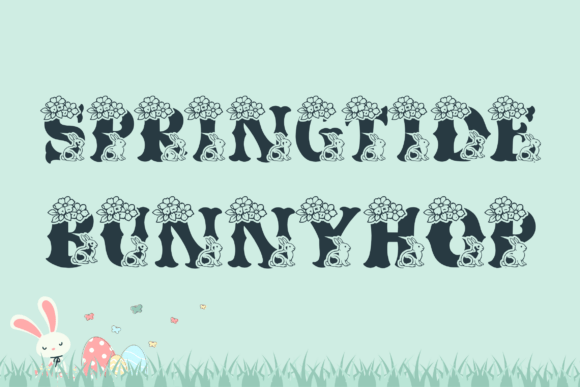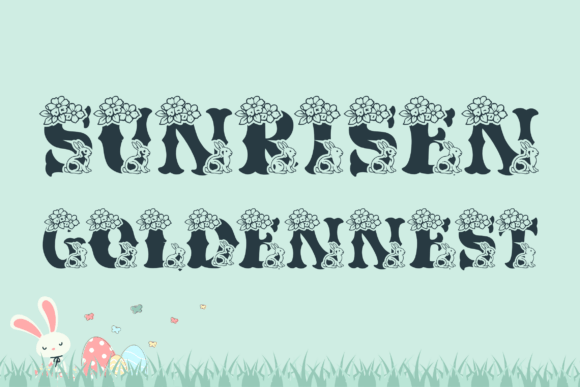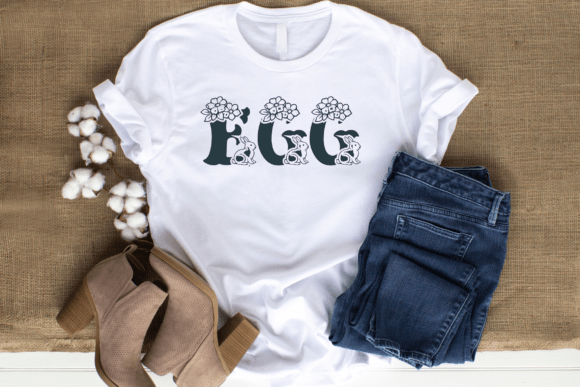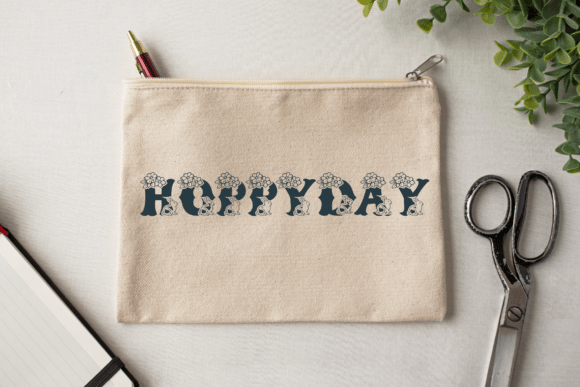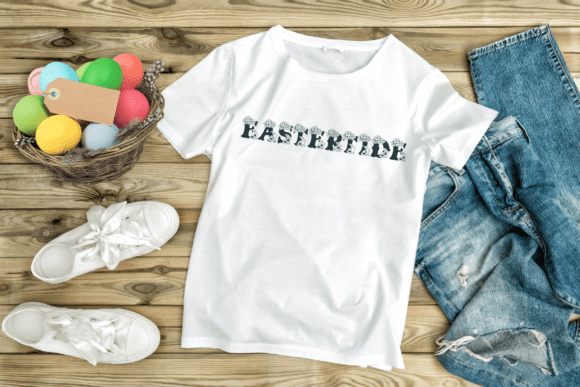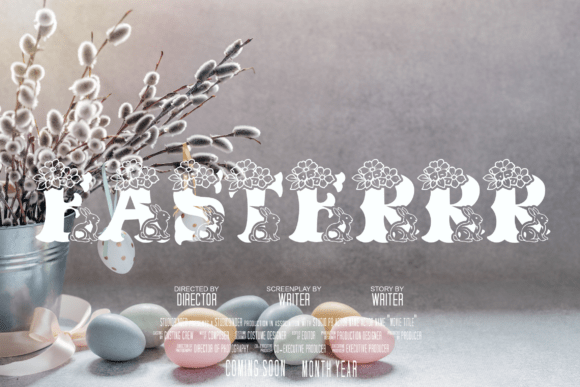
Meet Caskford Easter, the Western-Style Easter Decorative Font
Are you looking for a unique and festive font to elevate your Easter designs? Look no further than Caskford Easter, a Western-style Easter decorative font that blends classic old Western letterforms with a playful seasonal twist. This font is perfect for creating warm, fun, and memorable Easter designs that will stand out from the crowd.
A Perfect Blend of Classic and Playful
Caskford Easter is based on the original Caskford font, which boasts a bold, vintage structure. However, this Easter version adds a softer, festive mood that feels friendly and handcrafted. The result is a font that is both strong and readable, making it perfect for use in a variety of design projects, from small tags to large headlines.
Versatile and Practical
One of the best things about Caskford Easter is its versatility. This font is perfect for a wide range of Easter-themed design projects, including:
- Easter promotions
- Spring packaging
- Gift labels
- Posters
- Kids’ events
- Rustic seasonal branding
Why Caskford Easter Font Sells
So, what makes Caskford Easter font so special? Here are just a few reasons why it’s a top choice among designers and crafters:
- Prints and Cuts Cleanly: The sturdy outlines of this font print and cut cleanly, making it perfect for stickers, vinyl, laser, and DIY crafts.
- Fast and Efficient: The bold and balanced letterforms make it easy to create layouts quickly, saving you time and effort.
- Unique and Memorable: The mix of Western style and Easter charm makes Caskford Easter font stand out from typical cute Easter fonts.
What Sets Caskford Easter Apart
In a sea of cute and playful Easter fonts, Caskford Easter stands out for its unique blend of Western style and Easter charm. This font is not just a one-trick pony – it’s a versatile and practical solution that can be used in a wide range of design projects. Whether you’re creating Easter promotions, spring packaging, or gift labels, Caskford Easter font is the perfect choice.
Tips for Using Caskford Easter Font
Here are a few tips for getting the most out of Caskford Easter font:
- Experiment with Colors: Try pairing Caskford Easter font with bright, bold colors to create a fun and festive look.
- Play with Sizes: Use Caskford Easter font in a variety of sizes to create visual interest and hierarchy in your designs.
- Add Decorations: Consider adding Easter-themed decorations, such as eggs or bunnies, to your designs to make them more festive.